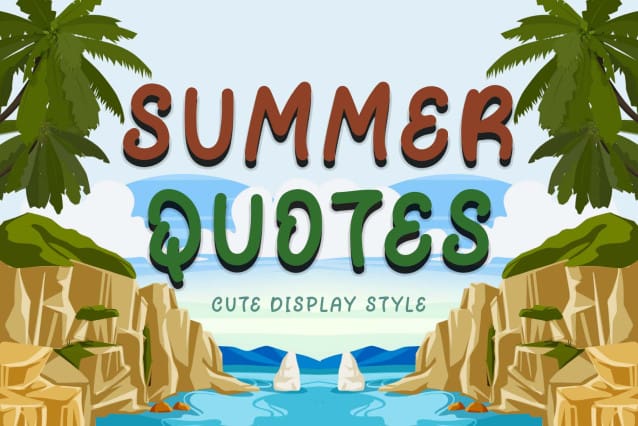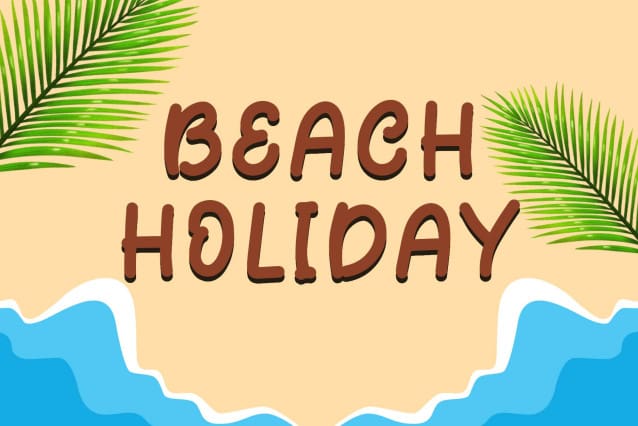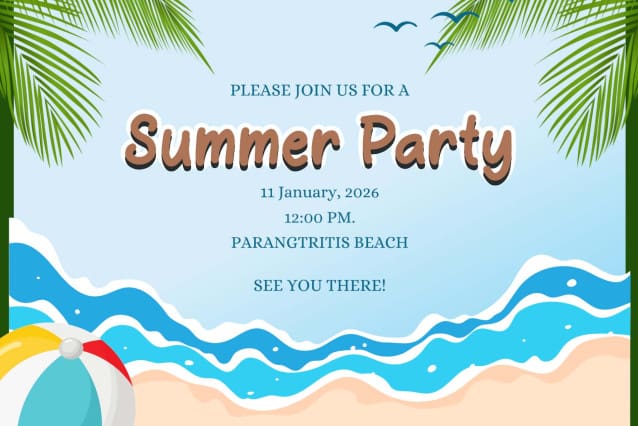
Summer Quotes Font
Summer Quotes Font is a cute and unique display font. This font is equipped with uppercase, lowercase, numerals, punctuations and multilingual support. Very suitable for banners, logos, stickers, summer, holidays, vacations, camping, tumblers, t-shirts, mugs, branding and others.